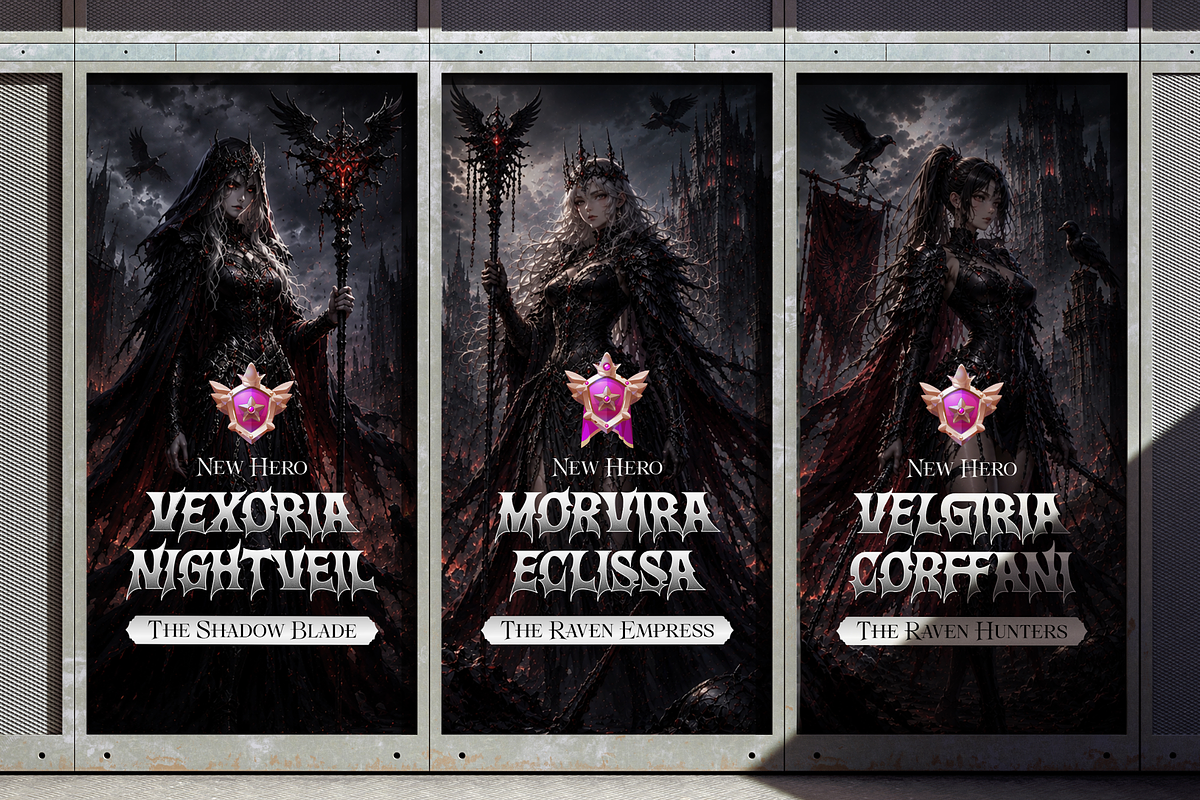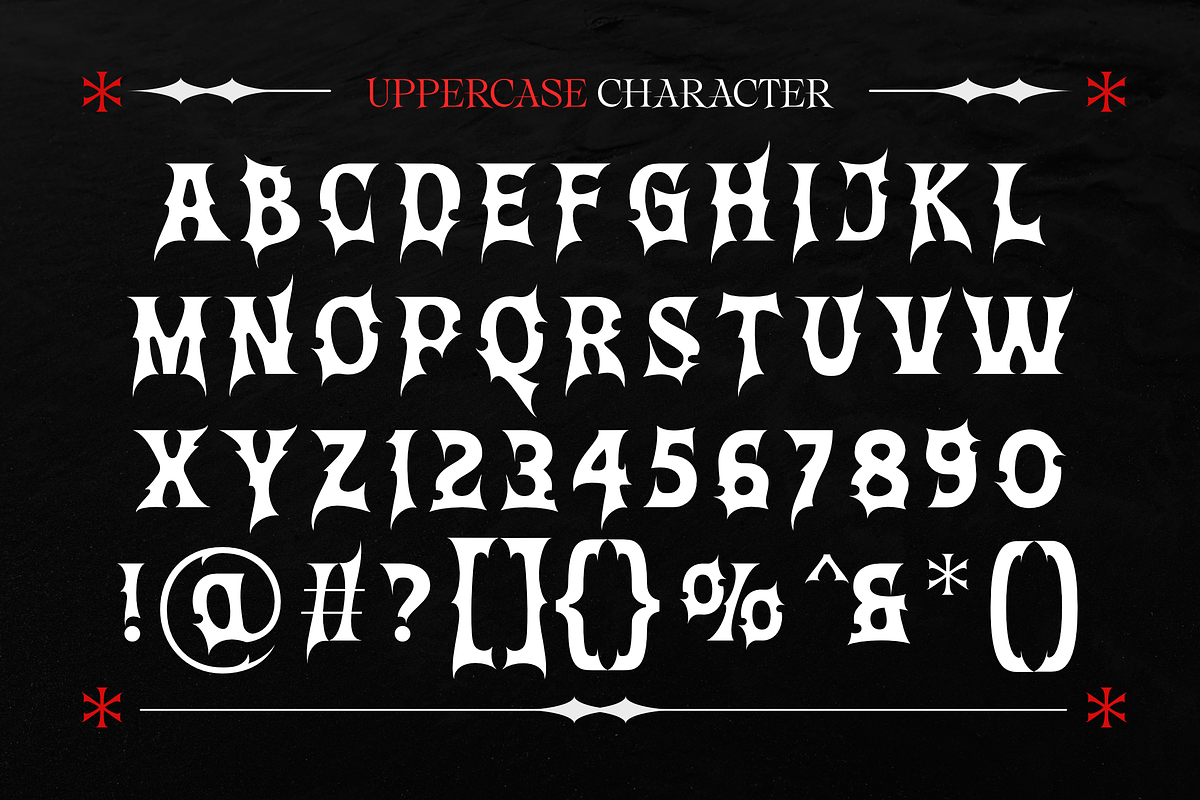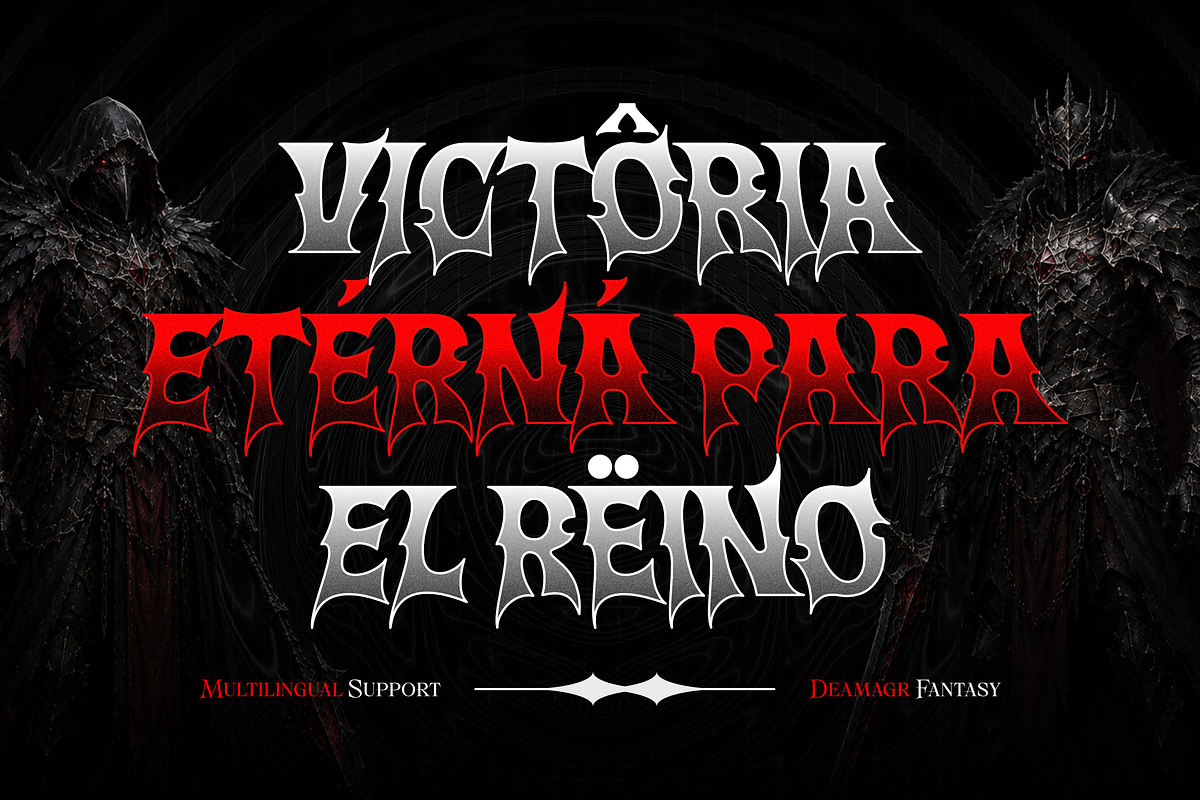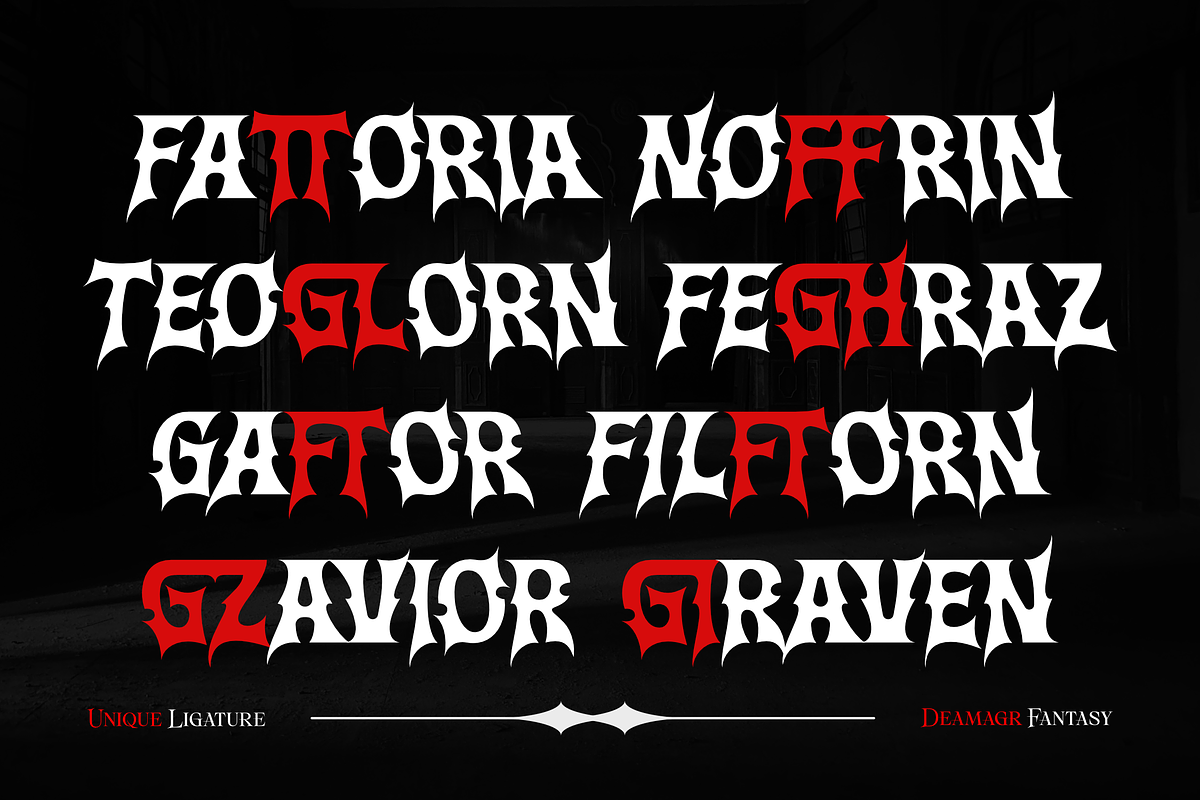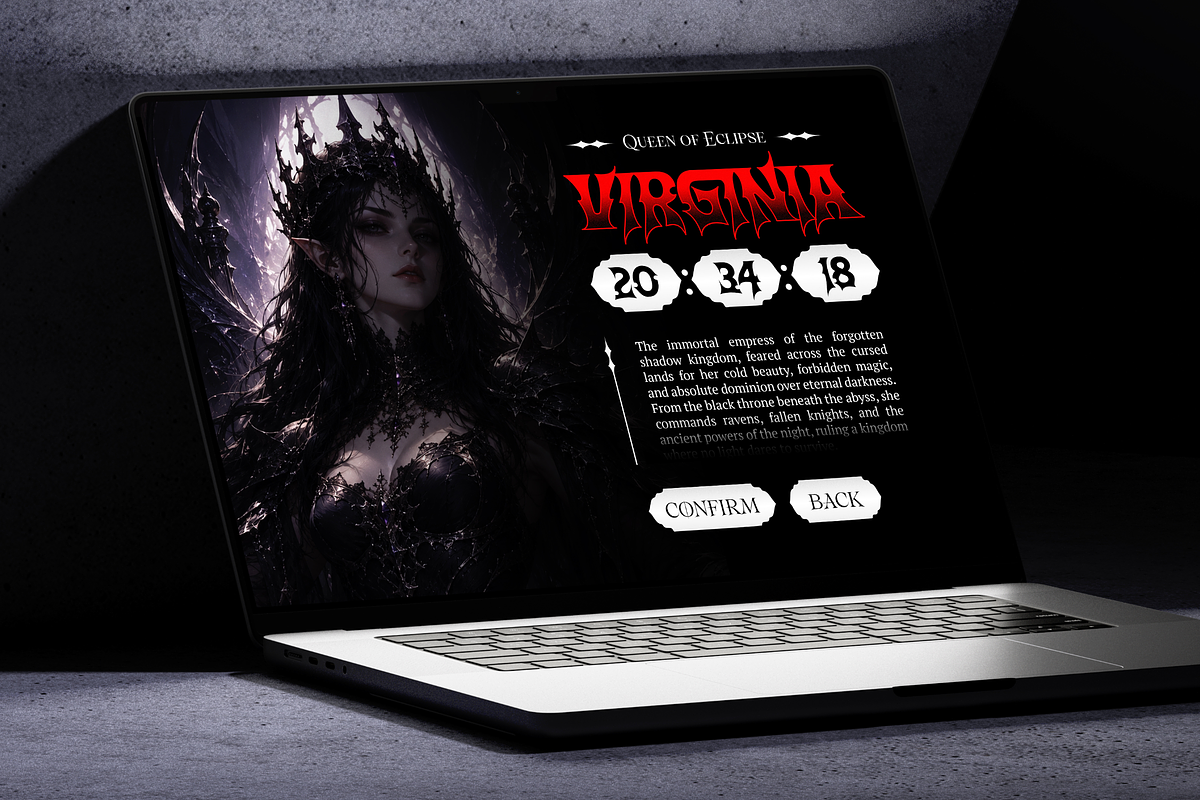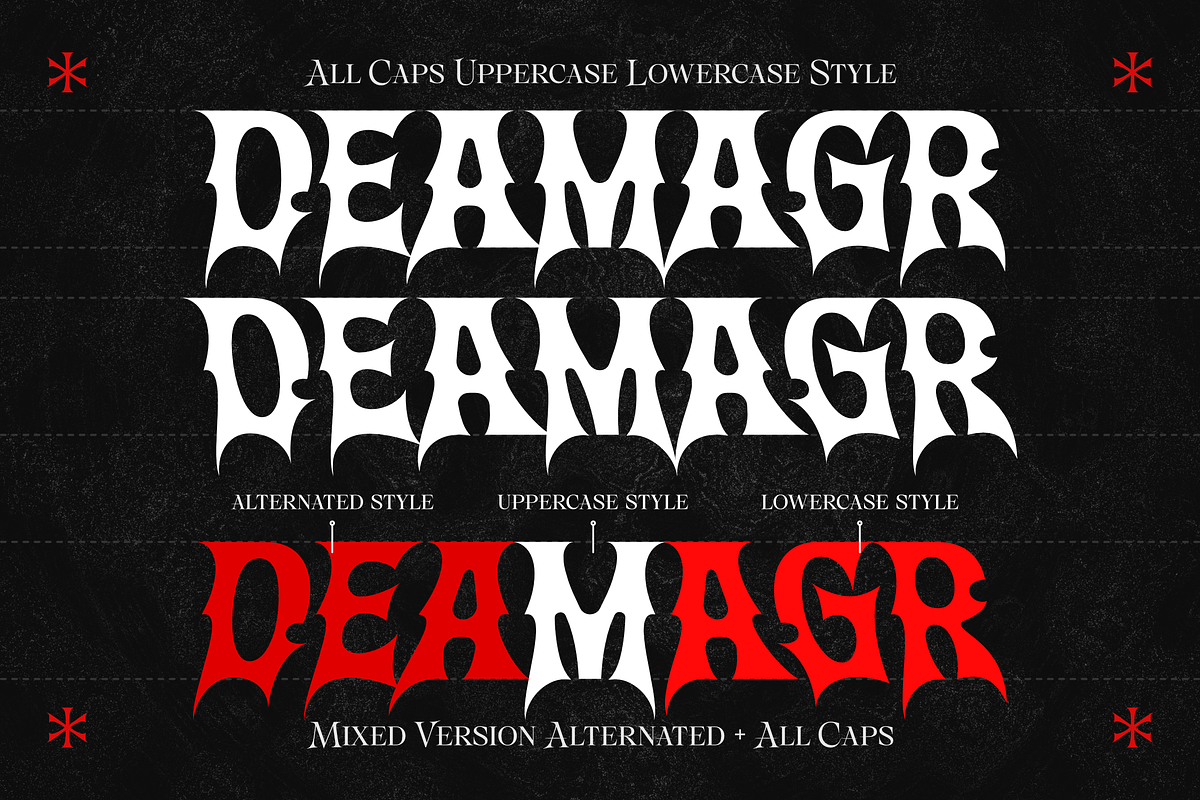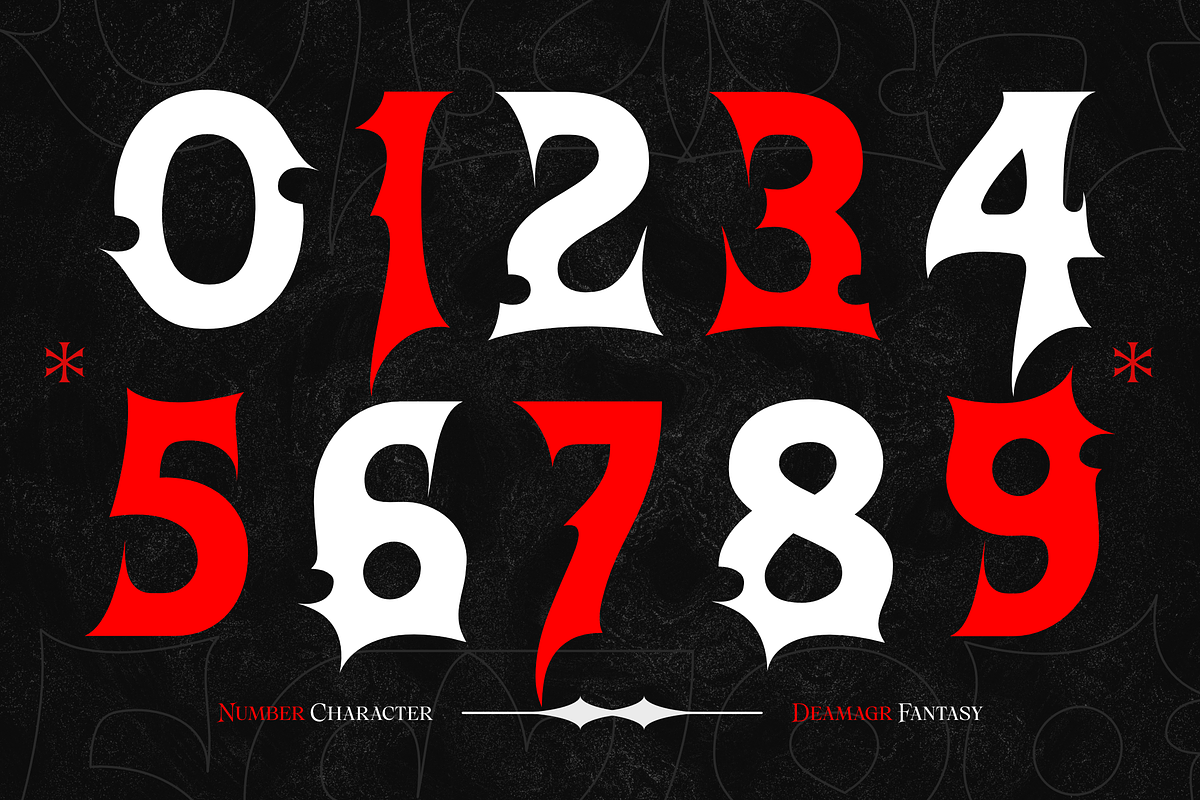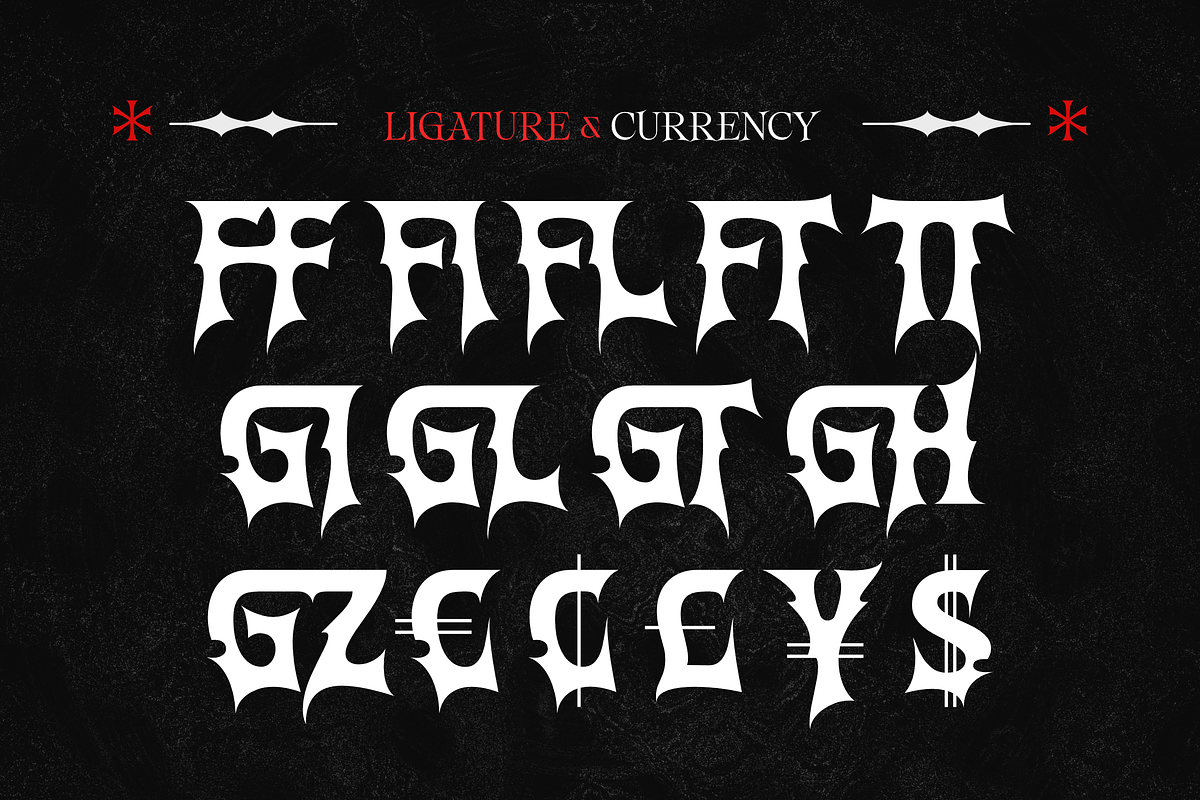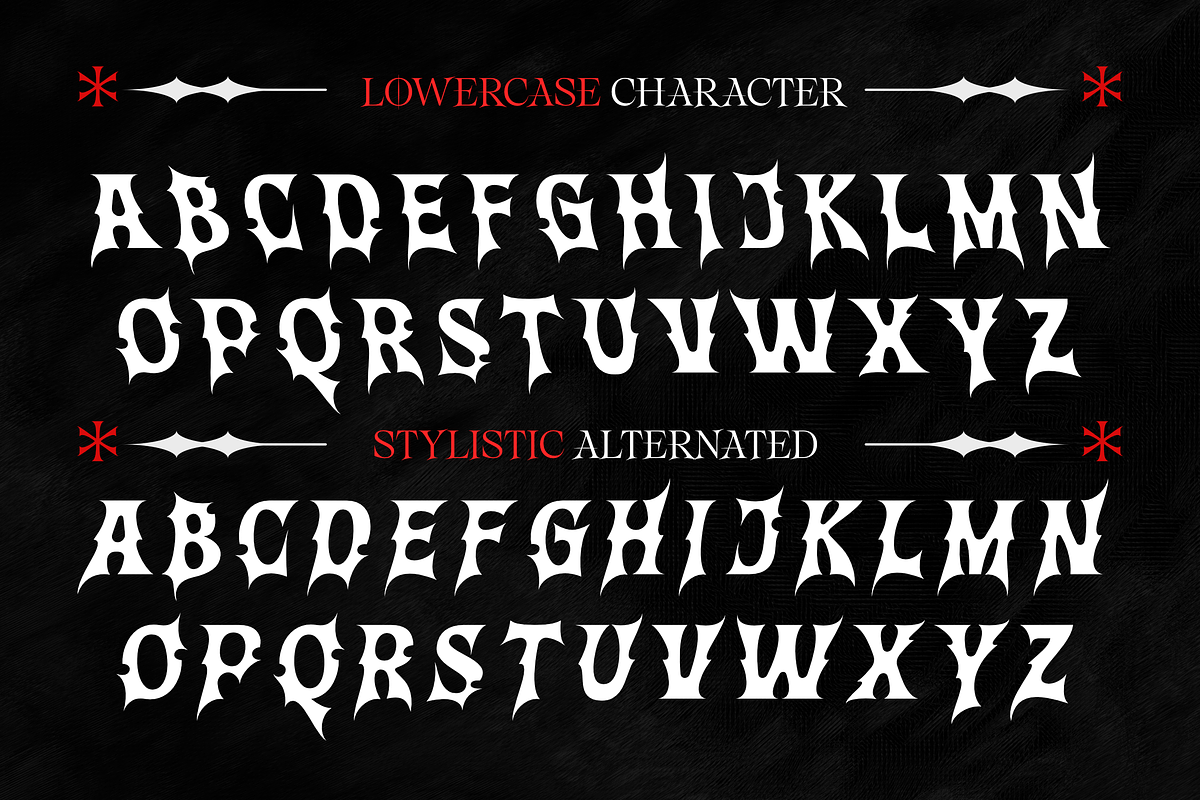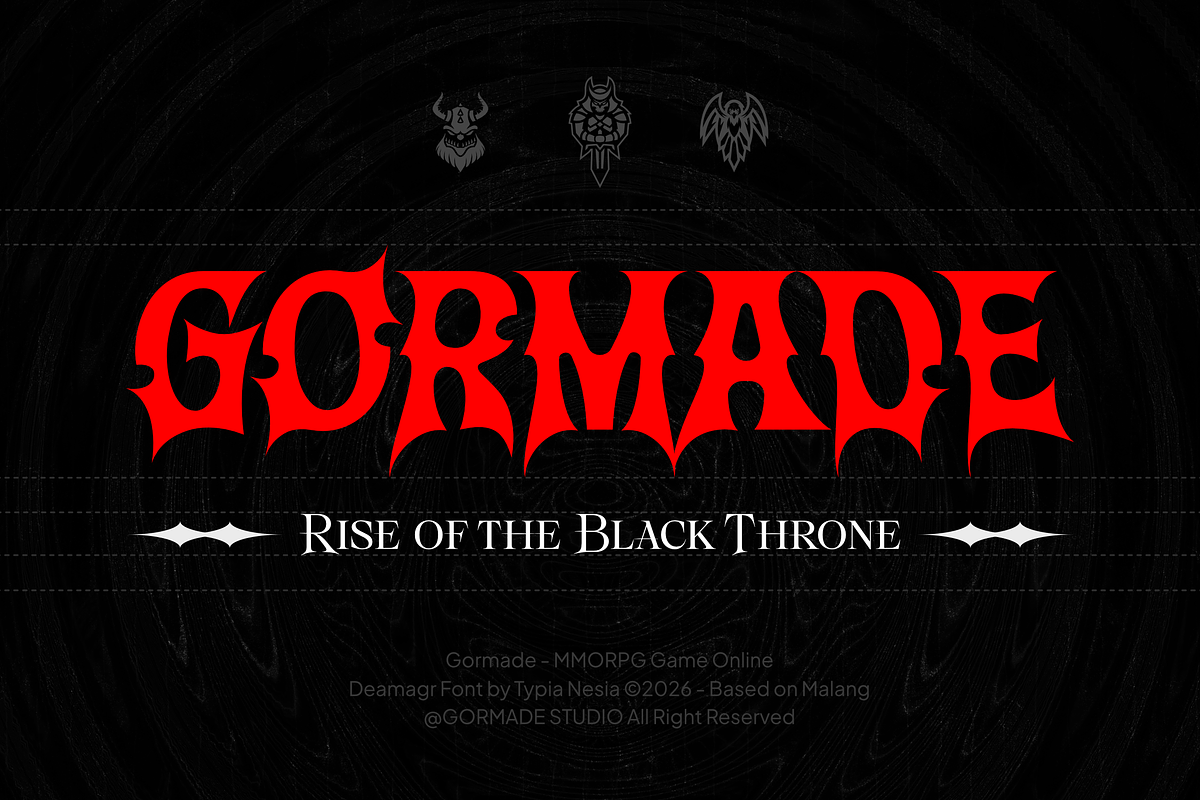
Deamagr - Gothic Fantasy Game Font
Deamagr - Dark Fantasy Serif Font for Gothic & Medieval Game Design
Deamagr is a dark fantasy serif font featuring dramatic letterforms, sharp details, and a mysterious gothic character. Inspired by medieval legends, mythical worlds, and cinematic storytelling, it delivers a powerful visual presence that feels both sophisticated and unforgettable.
Perfect for fantasy book covers, game titles, movie posters, RPG projects, branding, streaming content, event promotions, and other dark-themed creative works. It features multilingual support, alternates, numbers, punctuation, and distinctive serif details that bring depth and atmosphere to every design.
Step beyond the ordinary and craft immersive visuals that evoke mystery, power, and timeless fantasy.